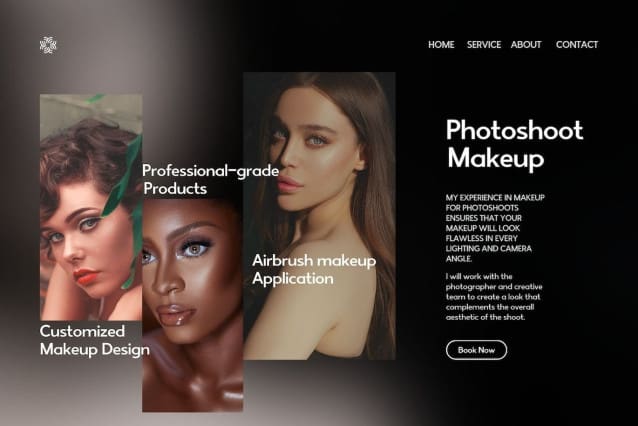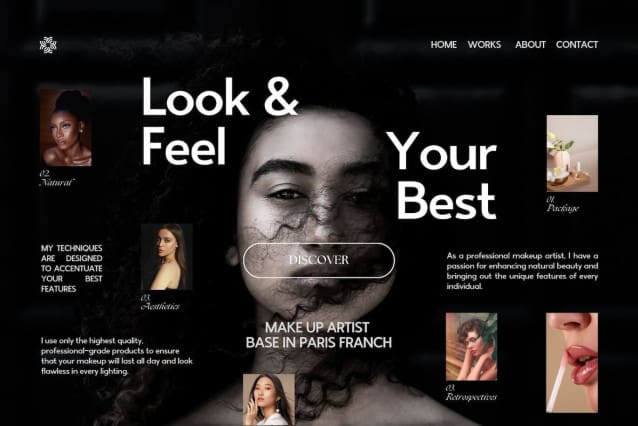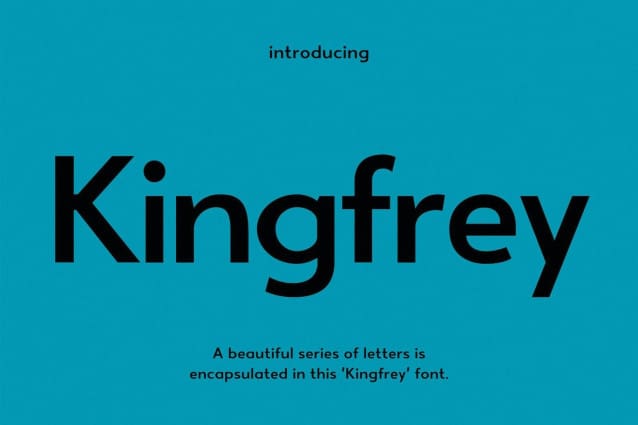
Kingfrey Font
Kingfrey Font a beautiful series of letters is encapsulated in this “Kingfrey” font. Neat lettering is perfect for modern writing needs and is easy on the eyes. It gives a modern feel while maintaining a sleek look when used for writing. Cleanliness in the making of each letter is our top priority. You can have fun and get creative using this font product we created because the results will definitely be very satisfying.